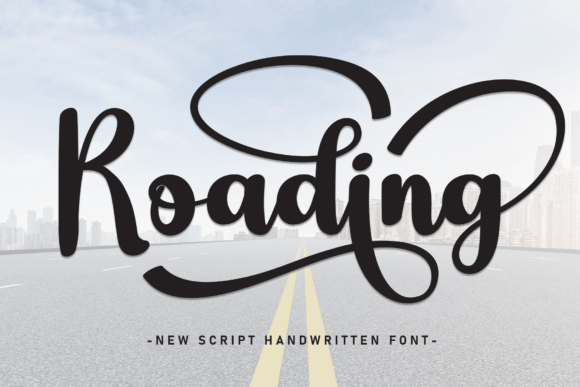
Journey back in time with Roading Font, a charming and nostalgic handwritten font that exudes a timeless vintage charm. Step into a world of classic elegance and rustic beauty as this exquisite script font takes you on a journey through the ages.
Roading Font, a creation of the talented Roronoa zoro.S.P.D., is not just a font; it's a testament to the enduring power of tradition. Inspired by the iconic signage of yesteryears, this font captures the essence of Americana and retro aesthetics. Its graceful curves and playful swashes evoke a sense of longing for simpler times, making it the perfect choice for designs seeking a touch of nostalgia.
With Roading Font, the possibilities are limitless. Unleash your creativity and let your imagination soar as you craft logos, posters, flyers, and social media graphics that are sure to captivate and transport your audience. Its natural and unique style blends seamlessly with various design aesthetics, from classic to contemporary, making it a versatile tool for designers of all levels.
More than just a font, Roading Font is an experience. Immerse yourself in the allure of vintage charm and create designs that evoke a sense of history and authenticity. Whether you're a seasoned designer or just starting, Roading Font will guide you on a creative journey that will leave a lasting impression.
Embrace the power of nostalgia and embark on a design adventure with Roading Font. Its timeless appeal and versatility will elevate your projects to new heights, ensuring that your designs stand out from the crowd and leave a lasting impact on your audience.